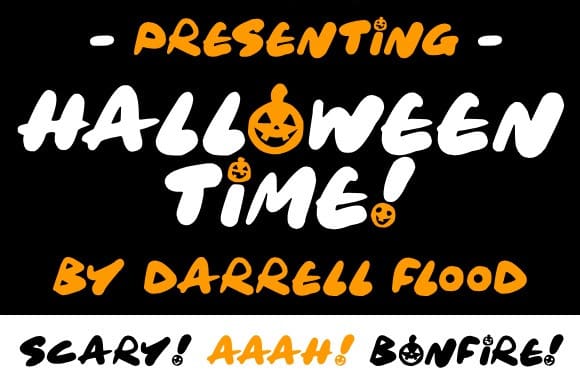
Halloween Time Font
Halloween Time Font is a bold and eye-catching display font created especially for the spooky season. With its creepy yet playful design, this font perfectly captures the eerie atmosphere of Halloween. Whether you’re designing party invitations, posters, or digital projects, it instantly sets a mysterious and chilling tone. Bring your Halloween ideas to life with a font that screams both horror and fun—download it today!